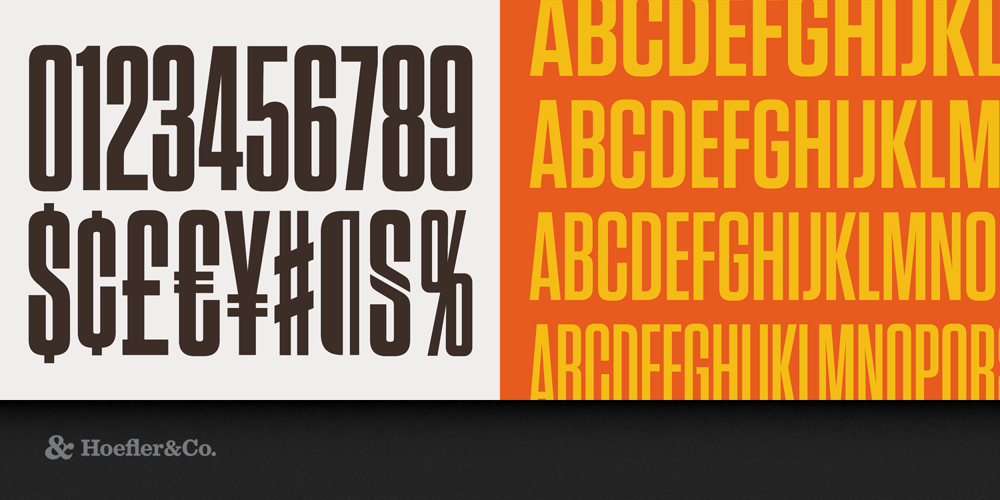
Tungsten Font Family was designed by Tobias Frere-Jones with Jonathan Hoefler and published by Hoefler & Co.. Tungsten contains 64 styles and family package options. That rarest of species, Tungsten is a compact and sporty sans serif that’s disarming instead of pushy — not just loud, but persuasive. The Tungsten typeface was designed by Tobias Frere-Jones with Jonathan Hoefler in 2003. A family of compact, modular sans serifs, Tungsten works in a style colorfully known to sign painters as ‘gaspipe lettering.’ First appearing on the Bravo television network in 2004, Tungsten’s four weights were expanded into a broader set of thirty-two styles in 2012. From the desk of the designer: Flat-sided sans serifs have been a vital part of graphic design since its very beginning. Like many of typography’s loveliest styles, these letters are an import from sign painting, where the style — doubtless because its kit of lines and curves resembles plumbing — is colorfully known as “Modern Gaspipe.” These modular letters were an important part of the twentieth century poster, bright and optimistic in the propaganda of the Works Progress Administration (WPA), and peremptory in the Constructivism of the young USSR. In the service of any agenda, what these letters always signified was modernity, industry, and zeal. Typographers have explored this compact modular style with mixed results. Typefaces that stay true to Depression-era forms run the risk of becoming nostalgic, forever evoking the sentimental Americana of tuxedo jackets and automats. Other designs, if they stick more doggedly to the underlying principles of rule and compass, often reveal how monotonous a typeface can become when restricted to too meager a kit of parts. Many such designs quit the fight when the going gets rough, abandoning their own internal rules when unruly letters like S or Ywon’t conform to the grid — a frailty that’s especially unwelcome in this kind of typeface, whose square-jawed ruggedness would otherwise recommend it for action movies and airport paperbacks. We started wondering if there was a way to make a typeface in this genre that was disarming instead of brutish, one that employed confidence and subtlety instead of just raw testosterone. It was an unusual design brief for ourselves, completely without visual cues, instead trading in cultural associations: “more Steve McQueen than Steven Seagal,” reads one note; “whiskey highball, not a martini” suggests another. We decided to reduce the letterforms not to circles and squares, but to a manageable set of stated interrelationships — between inside and outside, uppercase and lowercase, and one letter and the next — that could be applied with equal consistency throughout the design. The result is Tungsten, a family of high-impact fonts that doesn’t sacrifice wit, versatility, or style.